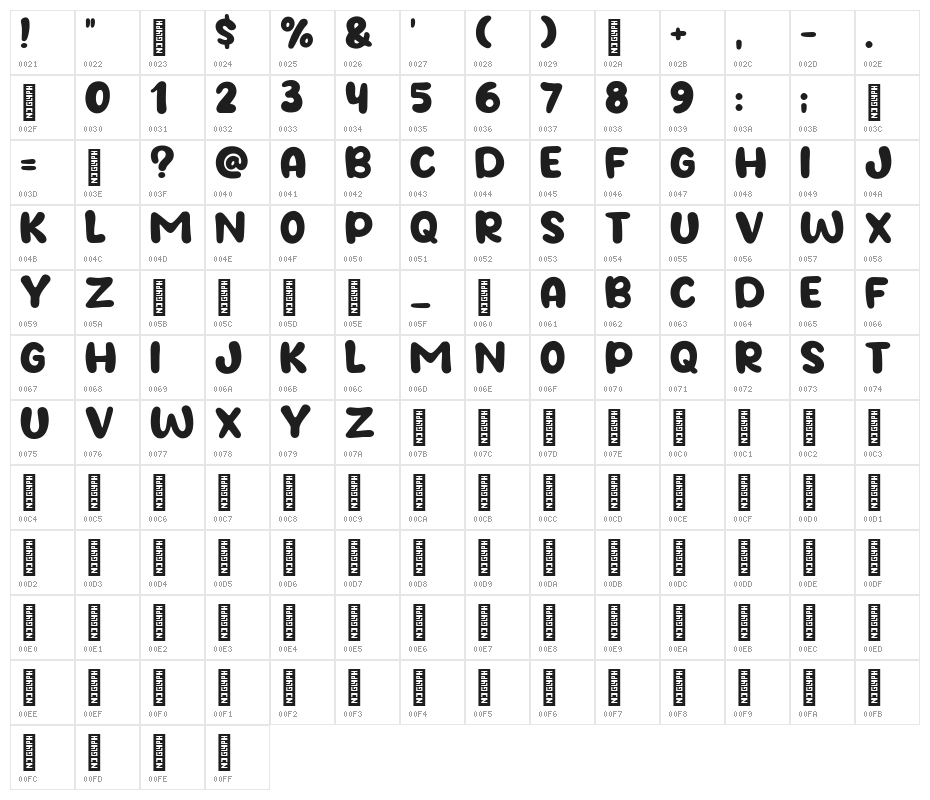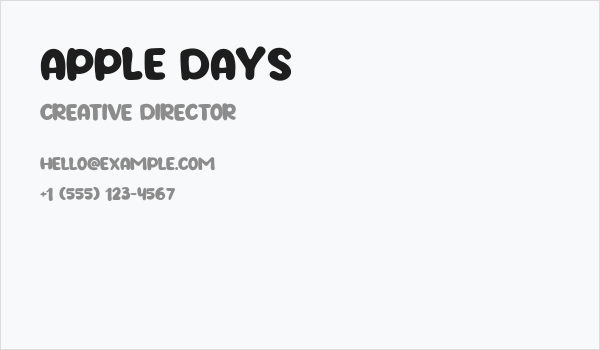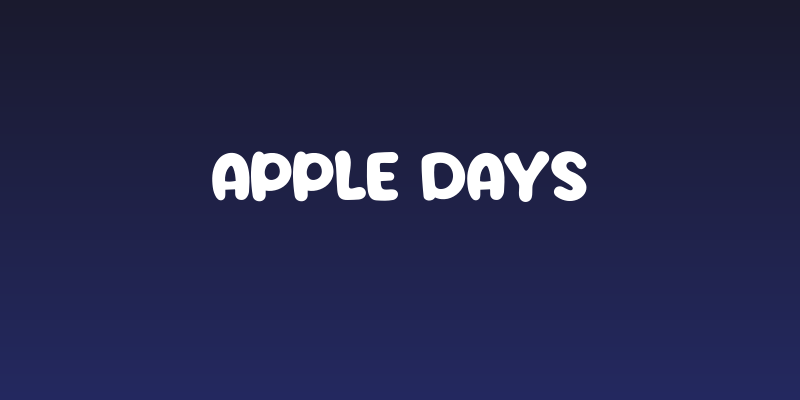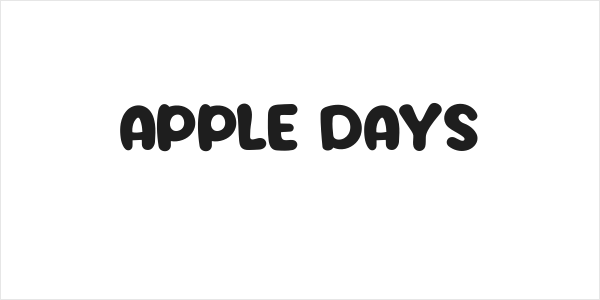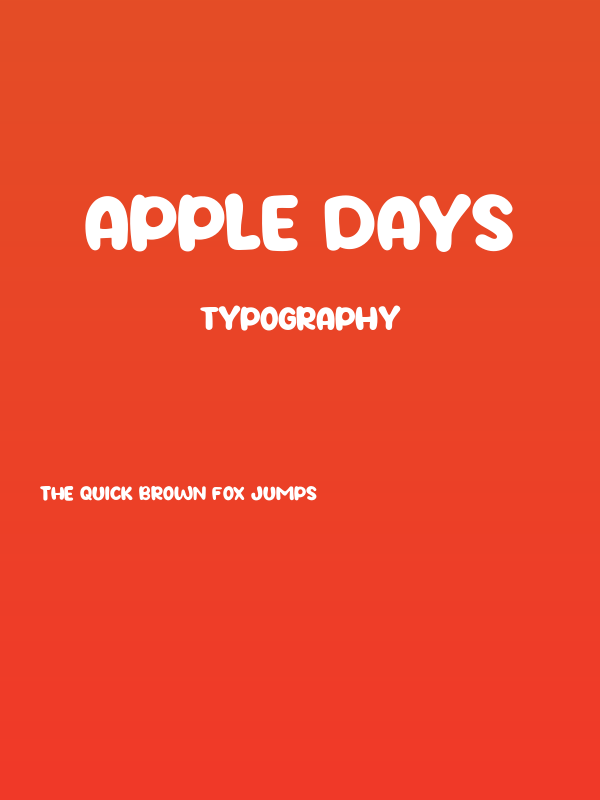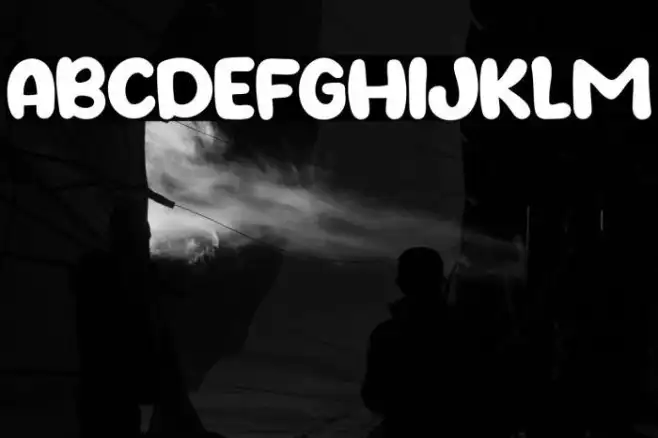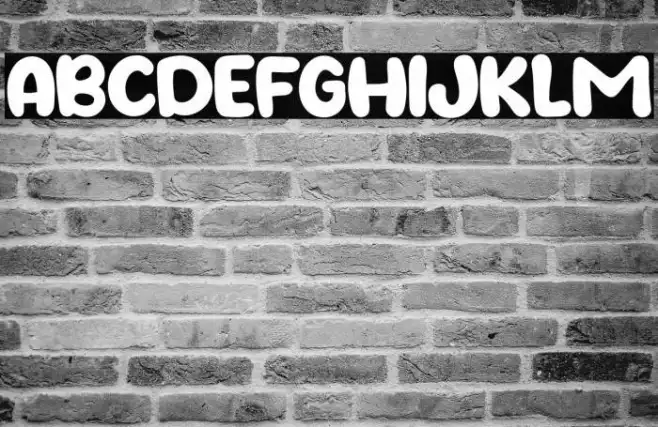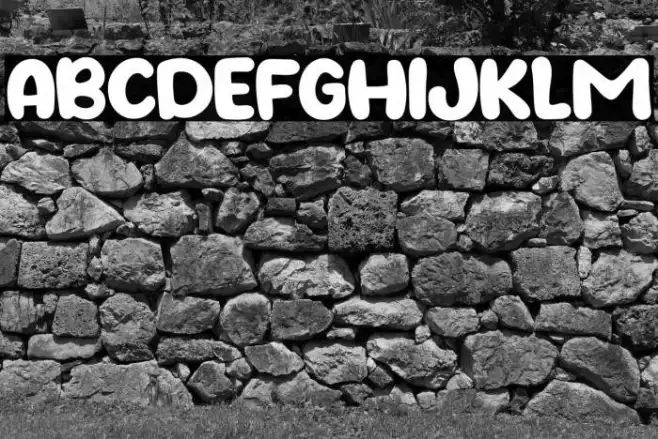
Apple Days Font
Apple Days Description
This font features a playful and bold style, characterized by its rounded and thick letterforms. The characters exhibit a consistent stroke width, contributing to a uniform appearance. The uppercase and lowercase letters maintain a cohesive design, with a slightly exaggerated curvature that adds a whimsical touch. The numerals and special characters follow the same design principles, ensuring a harmonious look across all glyphs. This font's friendly and approachable aesthetic makes it suitable for projects that aim to convey a sense of fun and creativity.
| Proposed Projects | Ideal for children's books, playful branding, posters, and creative advertising. |